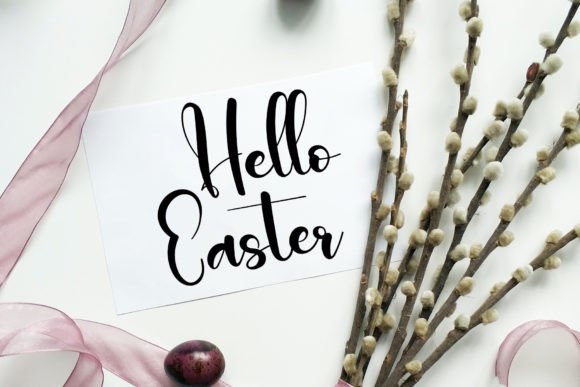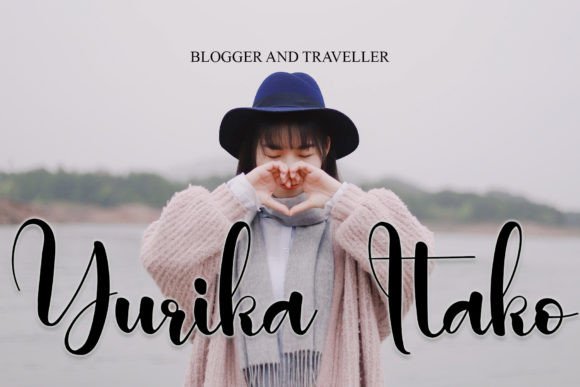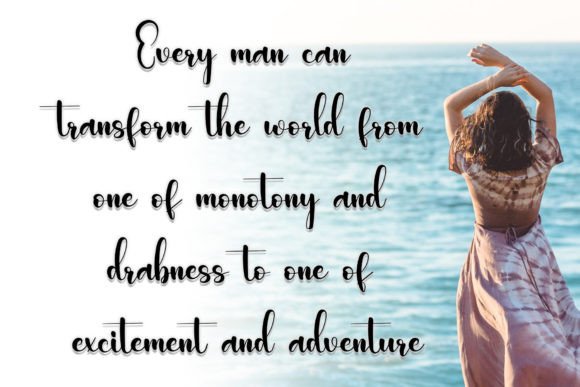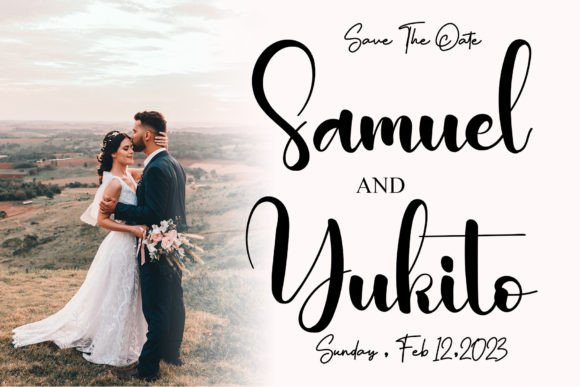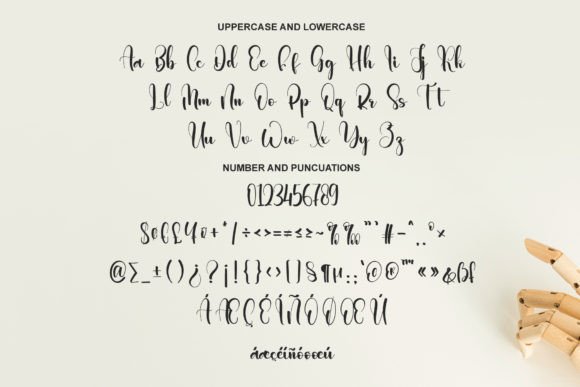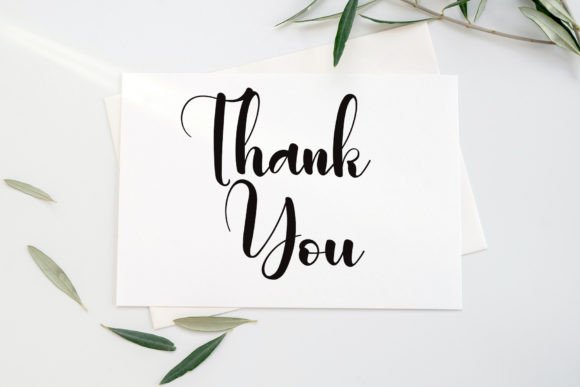
Unlock the Magic of Your Next Design Project
Have you ever been working on a design project, and suddenly, the perfect font pops into your mind? It’s that moment when everything comes together, and your creation starts to feel truly special. For me, it was the Birthday Font that made all the difference. Its unique, handwritten style is like a breath of fresh air in the world of typography.
The Birthday Font is a beautiful, versatile font that’s perfect for creating spectacular designs. Whether you’re planning a birthday party, wedding, or any other special occasion, this font is sure to add a personal touch to your project. Its well-rounded letters make it a masterpiece that’s hard to resist.
As a designer, you know how valuable it is to have the right font at the right time. That’s why the Birthday Font is a must-have in your design arsenal. With its incredible style and versatility, it’s sure to become your go-to font for all your design needs.
Birthday Font Key Features
- Font Style: Script font with a celebratory feel, ideal for birthday cards and party invitations.
- Unique Characteristics: Features ornate flourishes, decorative swashes, and elegant curves to add a touch of sophistication to birthday messages.
Birthday Font Review
Overall, I was quite excited to dive into the “Birthday Font” and see what it has to offer. Here’s my honest take on this font.
- Cute and playful aesthetic: The font’s whimsical design makes it perfect for birthday invitations, party decorations, and other celebratory materials.
- Clear and readable: The font is easy to read, even in smaller sizes, which is great for posters, flyers, and other marketing materials.
- Customization options: The font comes with a range of customization options, allowing users to adjust the size, color, and style to fit their needs.
- Limited flexibility: The font’s playful design may not be suitable for more formal or professional applications.
- No bold or italic options: The font is available in regular and bold weights, but there are no italic or condensed versions.
- May not be compatible with all software: I experienced some issues with the font not rendering properly in certain design software.
The “Birthday Font” is a fun and playful addition to any designer’s toolkit. While it has some limitations, it’s perfect for birthday-themed projects and can add a touch of whimsy to other designs. Just be aware of its limitations and use it accordingly.
Tips for Getting the Most Out of it
Use the Birthday Font to create eye-catching titles and headings for birthday invitations, party decorations, and social media posts.
Combine the Birthday Font with colorful graphics and images to create a festive atmosphere.
Experiment with different font sizes and styles to create visual hierarchy and emphasis.
Birthday Font is commonly used for:
- Birthday invitations and party decorations.
- Social media posts and online birthday announcements.
- Photobooth signs and custom party banners.
- Personal